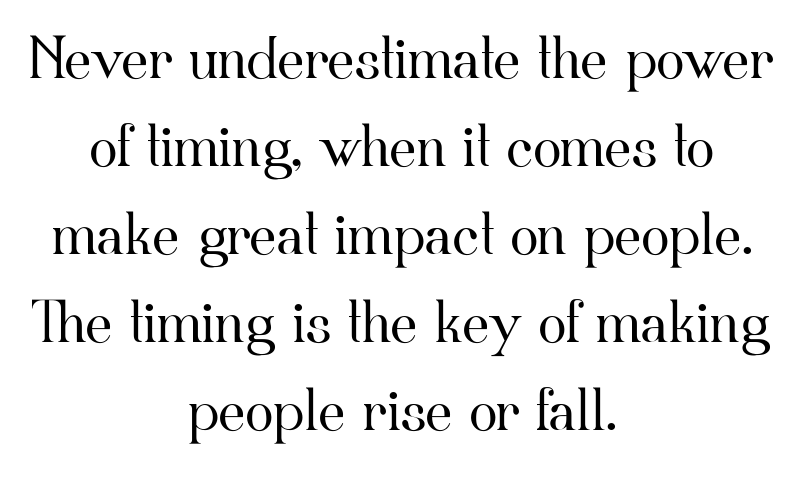
Preview and download Fortunatus Font. Created by Bálint Erdősi in Basic Serif styles with Donationware license.
This font can be regarded as the “brother” of Fortunata (http://www.dafont.com/fortunata.font), it basically has the only difference of having the counters properly closed — thus being maybe more widely usable. So apart from that it features the same characteristics as Fortunata, like high stroke contrast and asymmetric serifs. Also just like its sister, this one is donationware, so especially if you are using this font for business, a symbolic amount of donation is more than encouraged. ;) PayPal: balint.erdosi@aegee.org Enjoy using this font! |